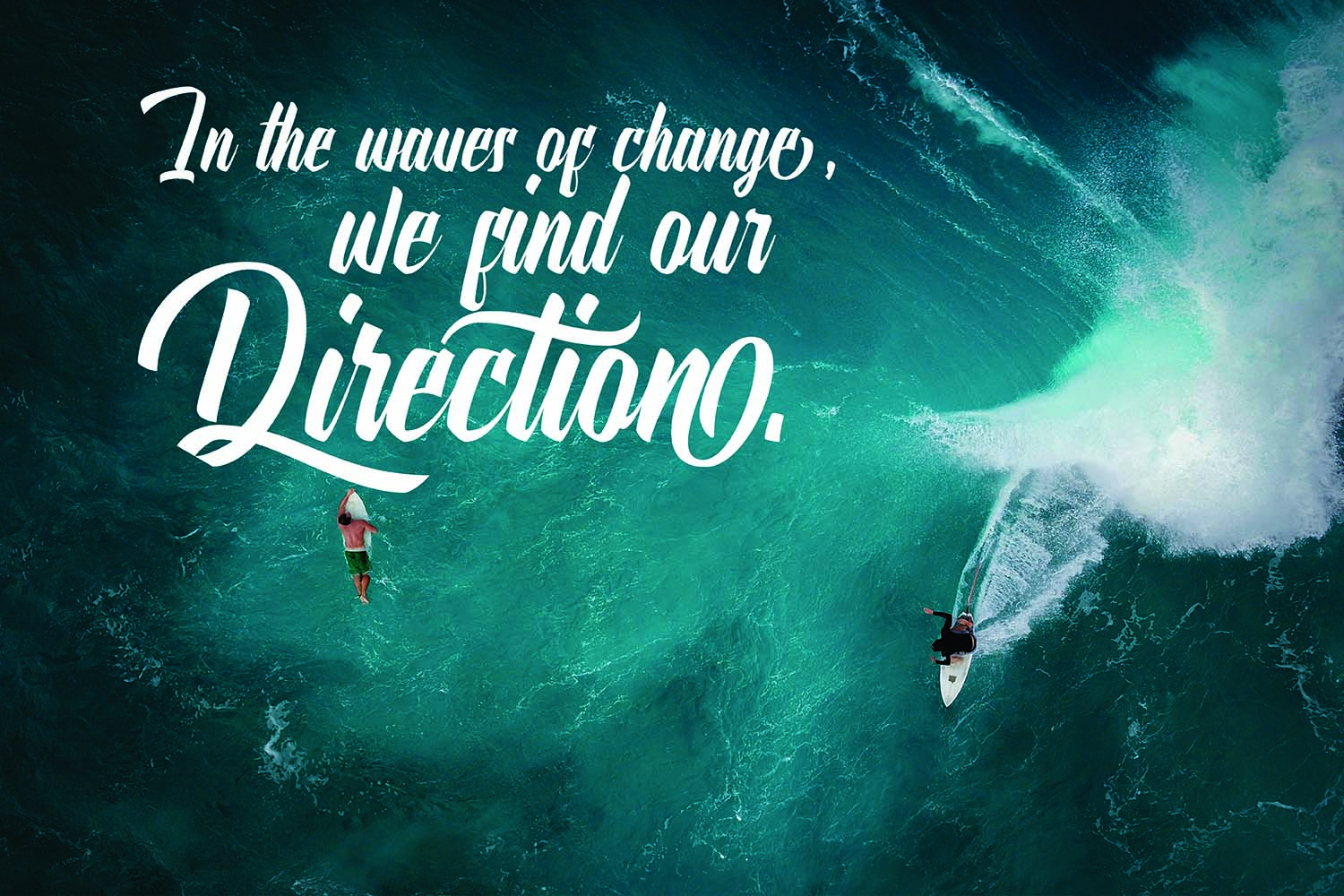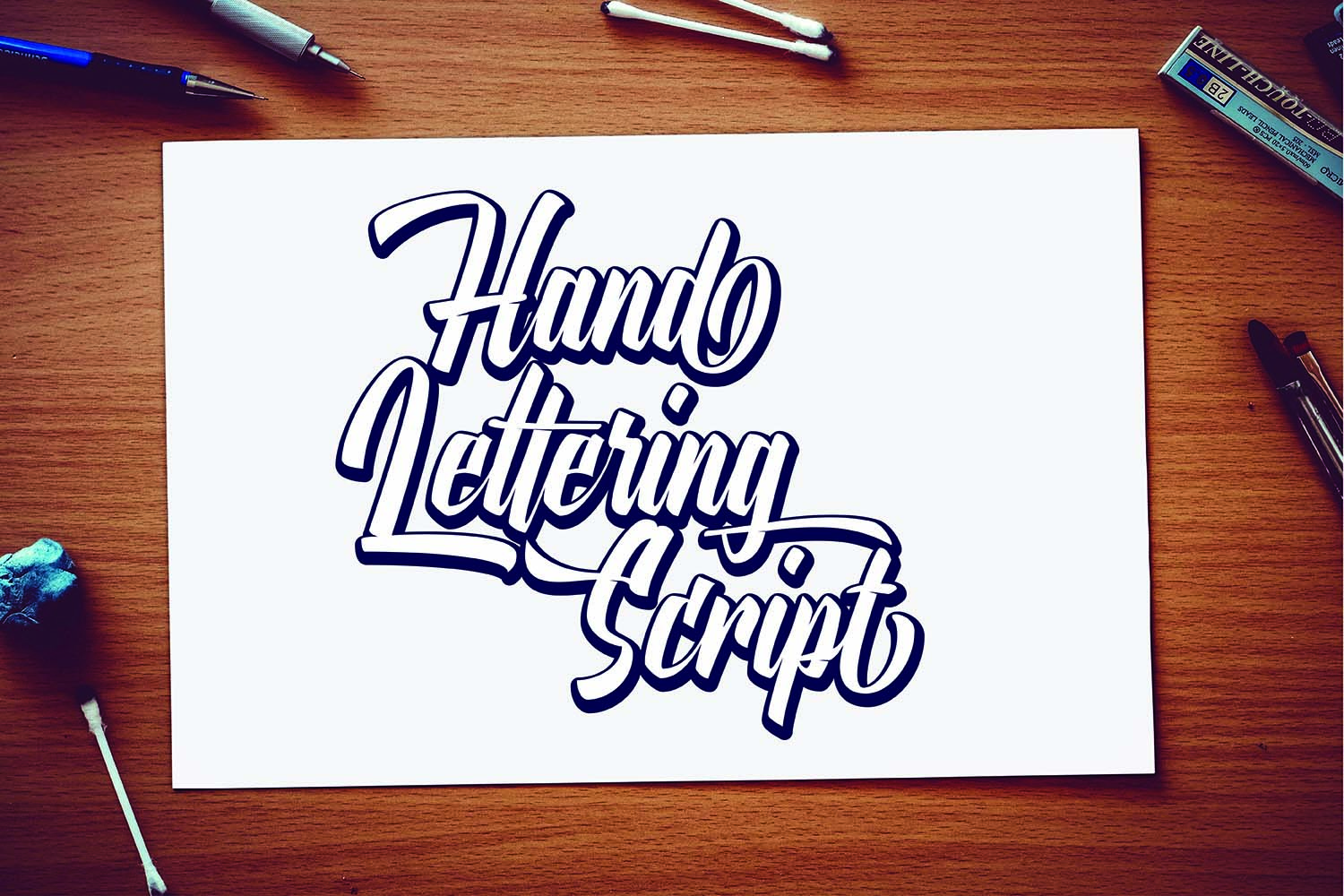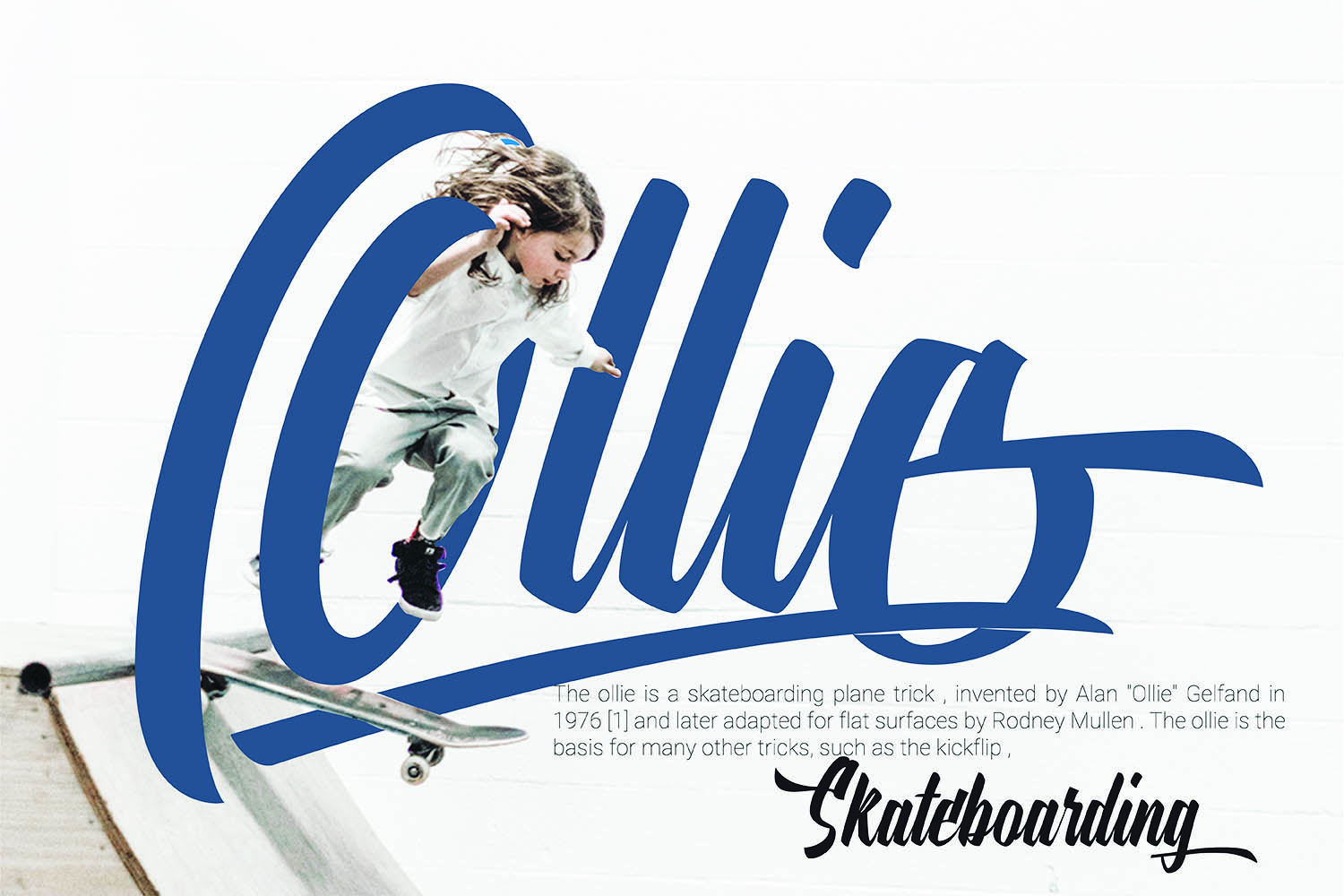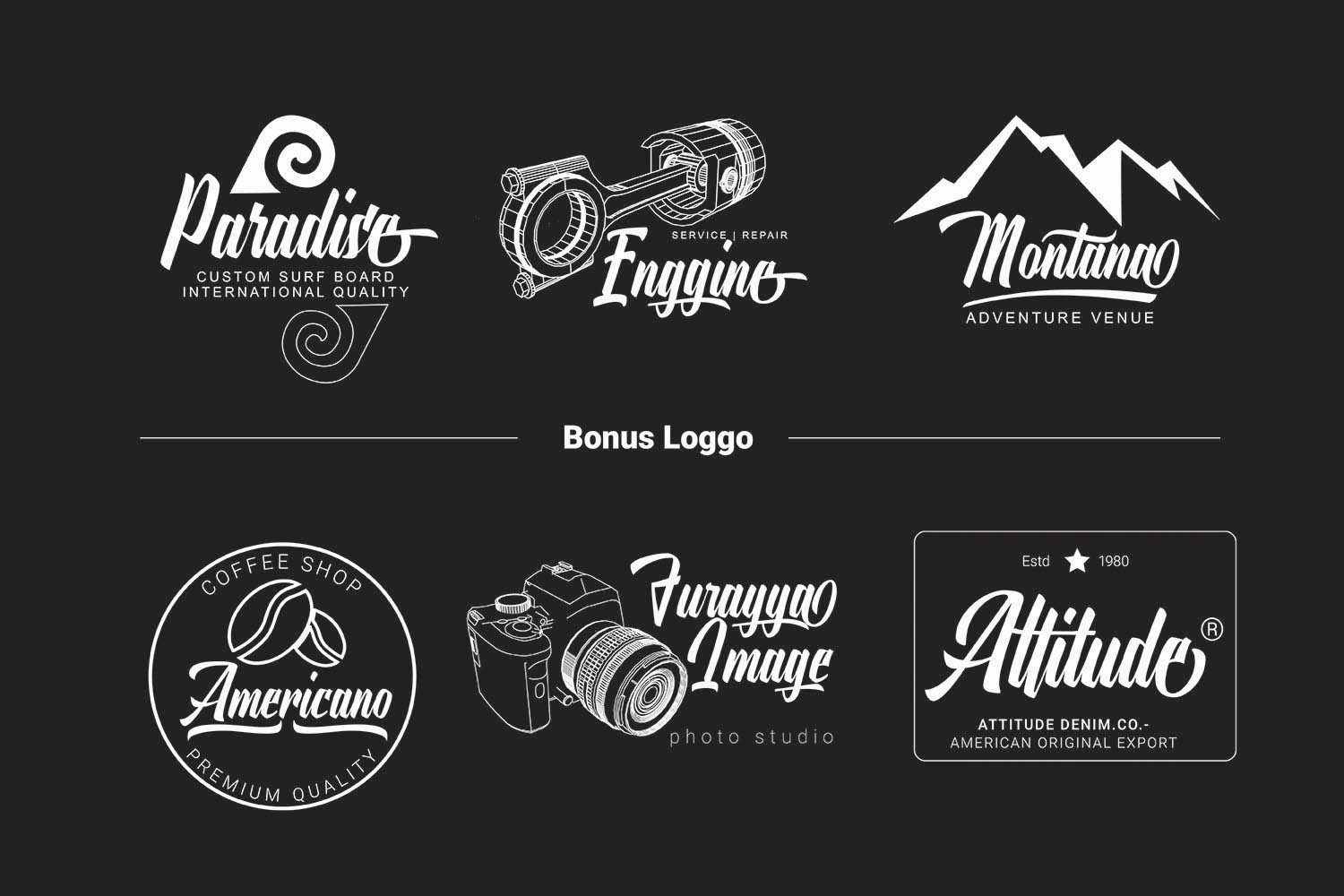
Onthel Script Font
Onthel Script Font – Free Demo
Introducing Onthel Font. A new bold script font. You can create perfect and unique designs from this font. It is was designed by Grayscale. The Onthel is a bold-script with a touch of rhythmic brush that is very charming and has character. It was inspired by Onthel Bicycles, this is a Dutch design bicycle that is characterized by an upright sitting position and has a very strong and high-quality reputation.